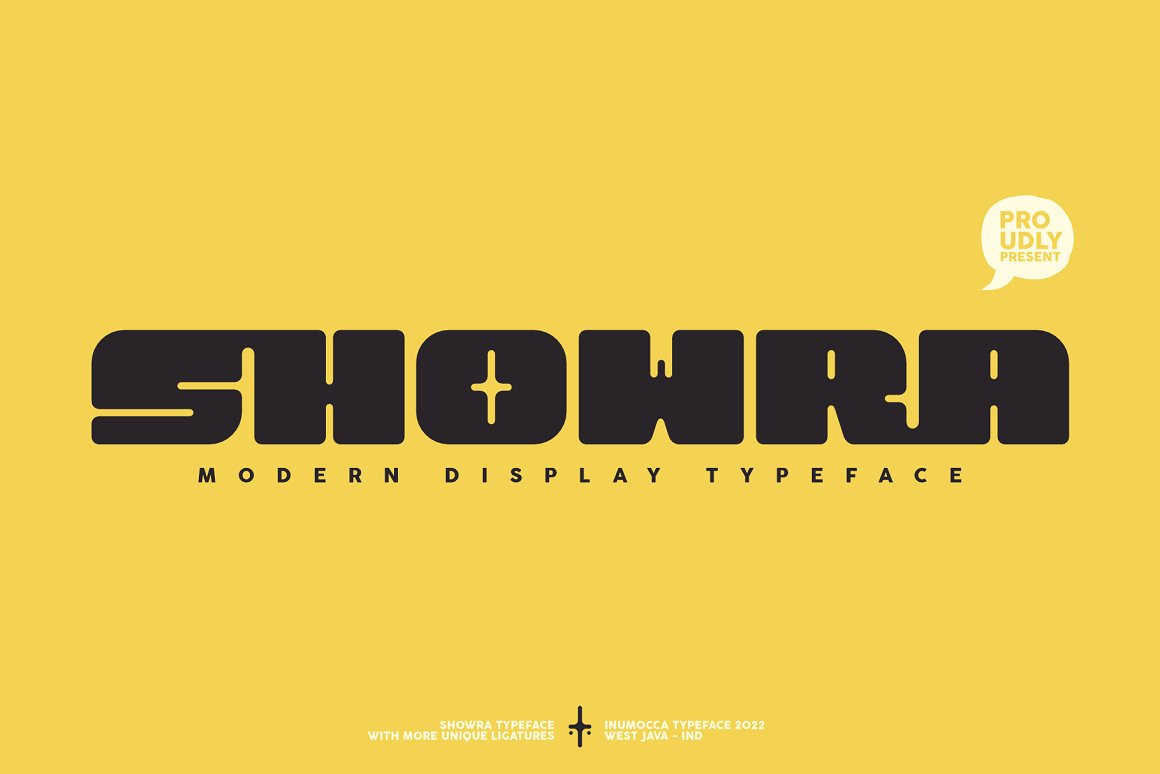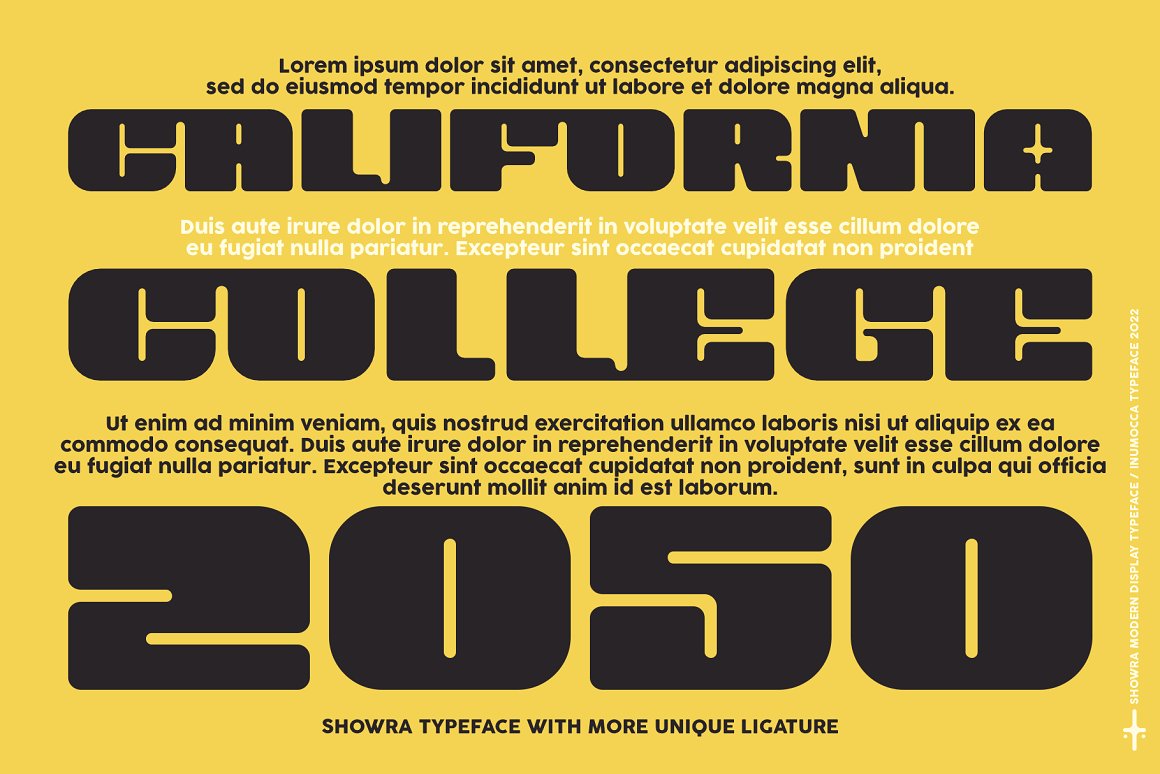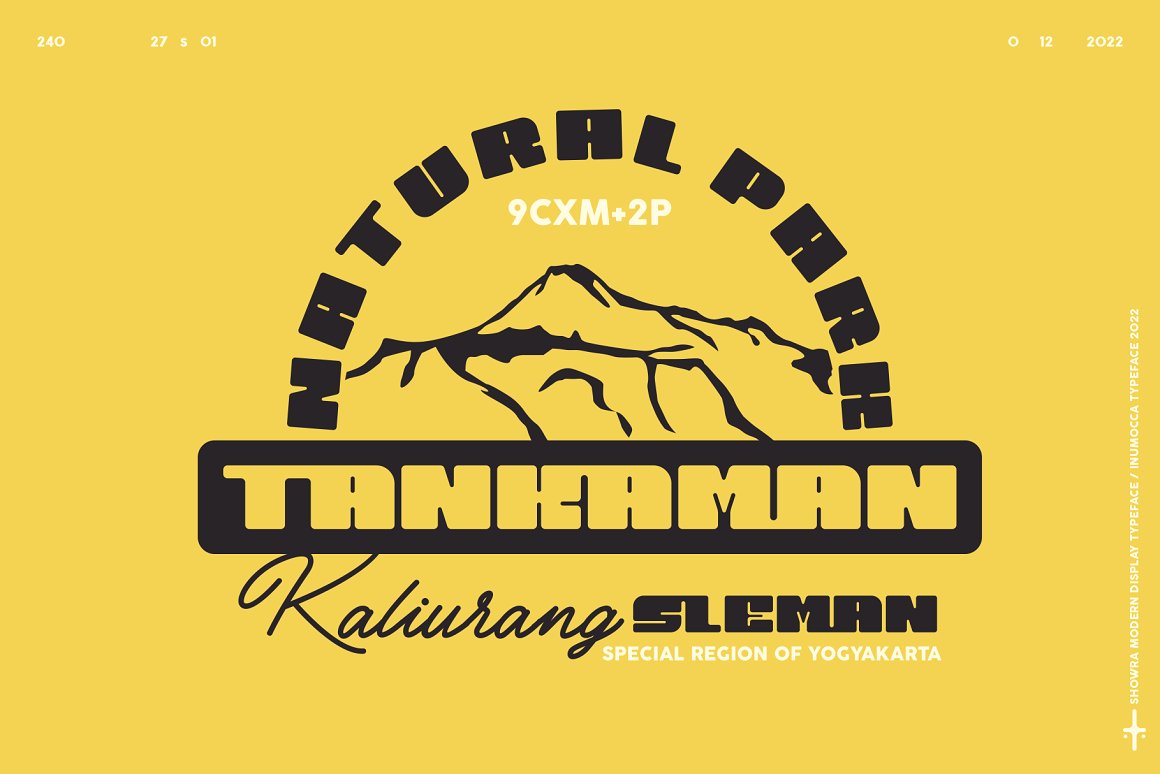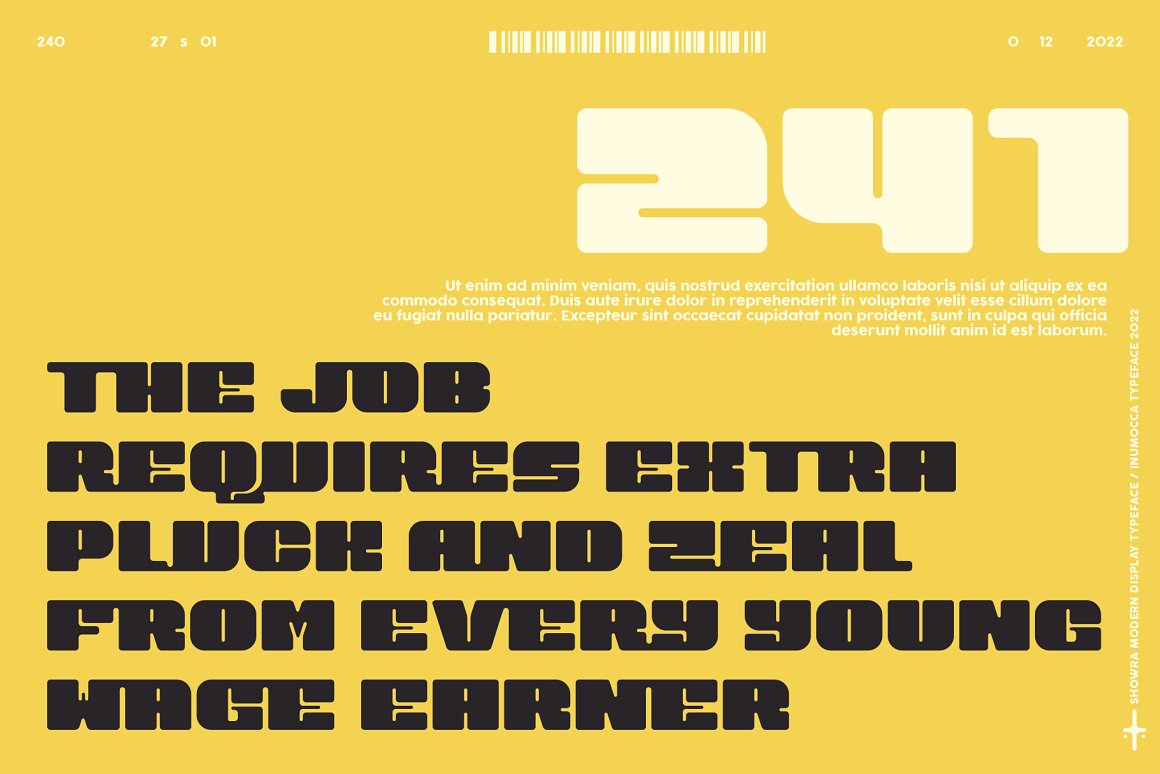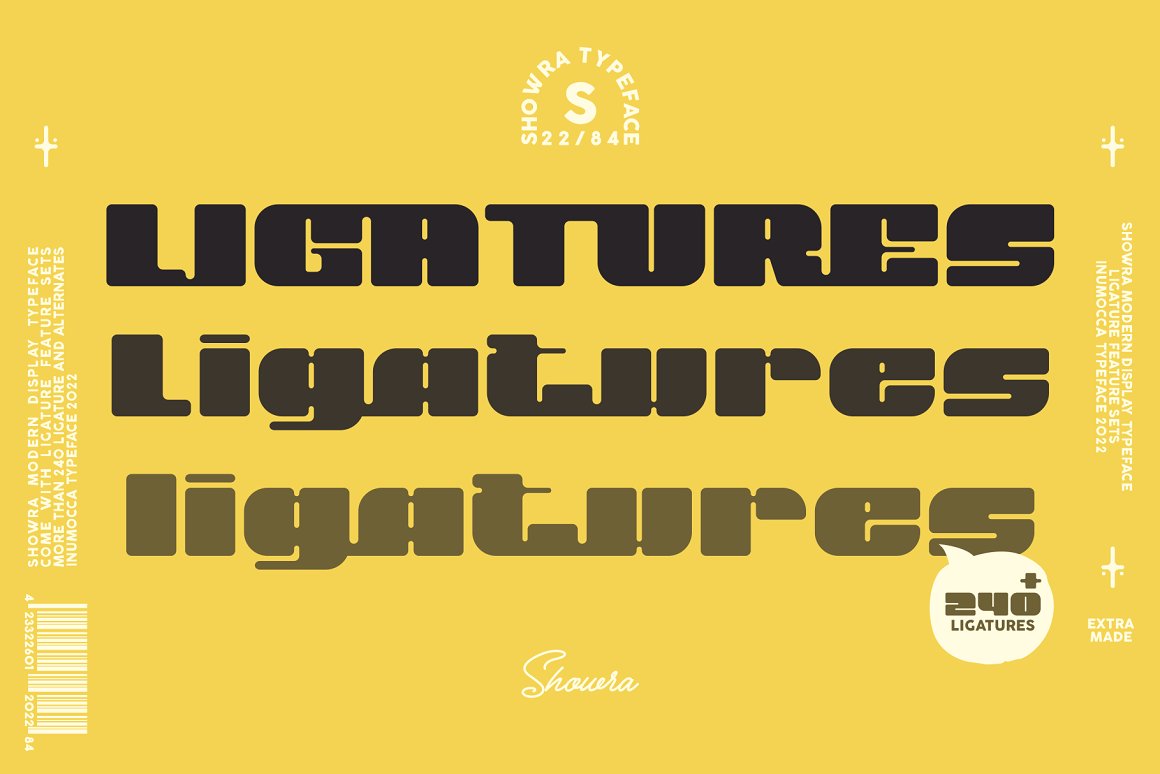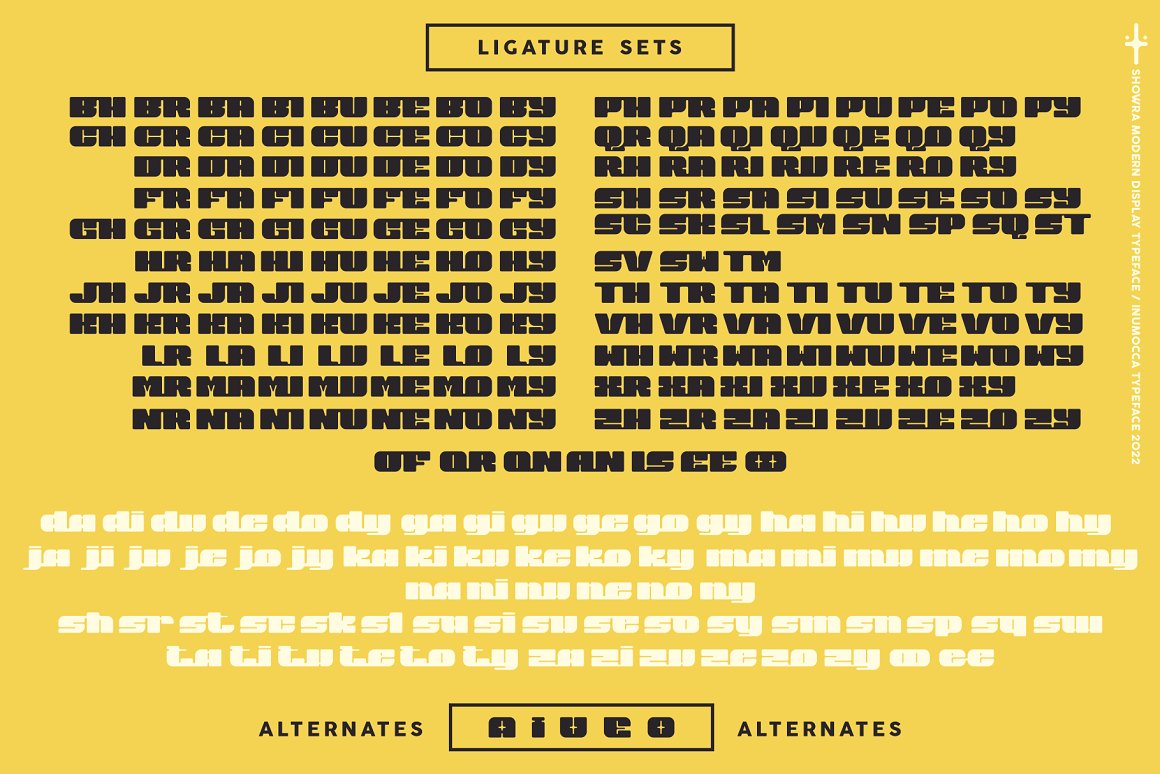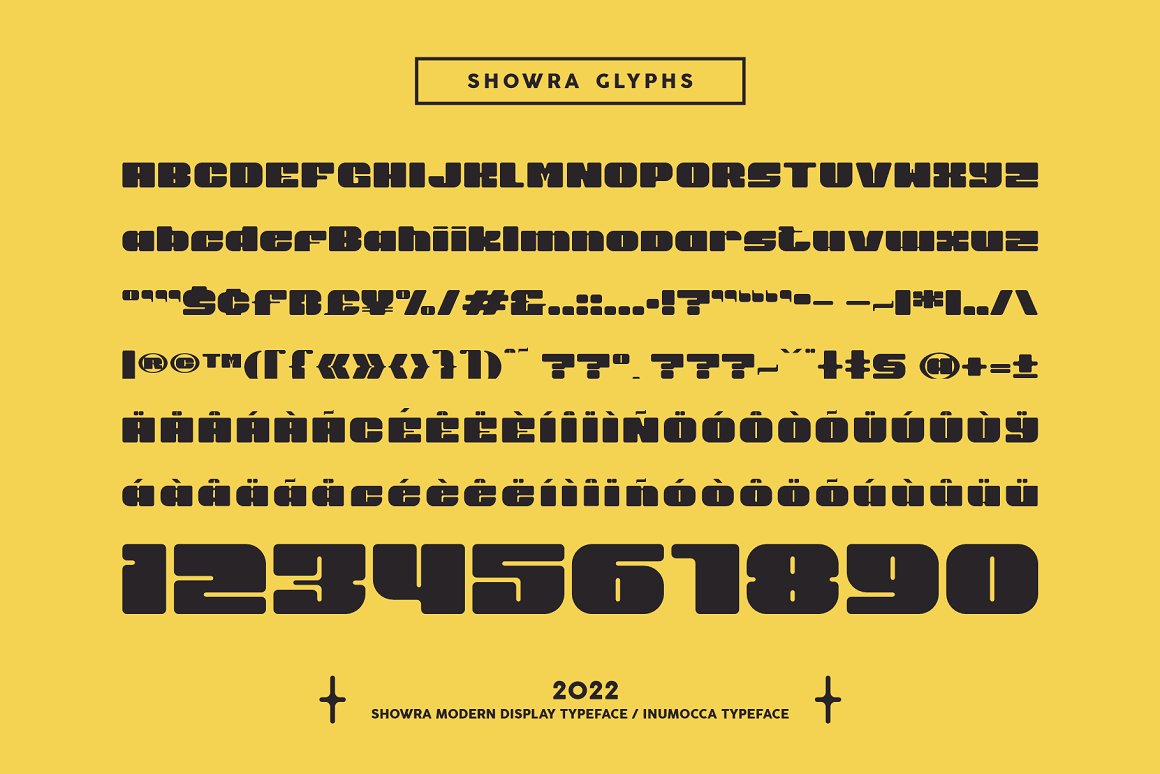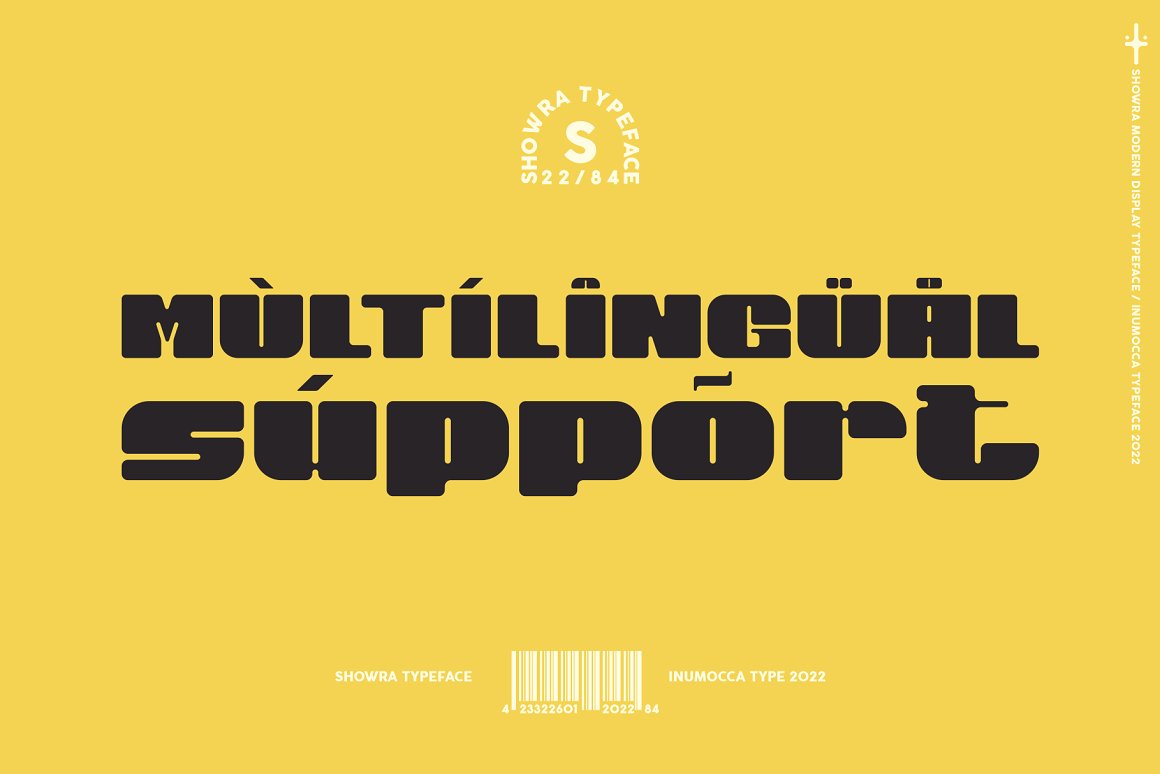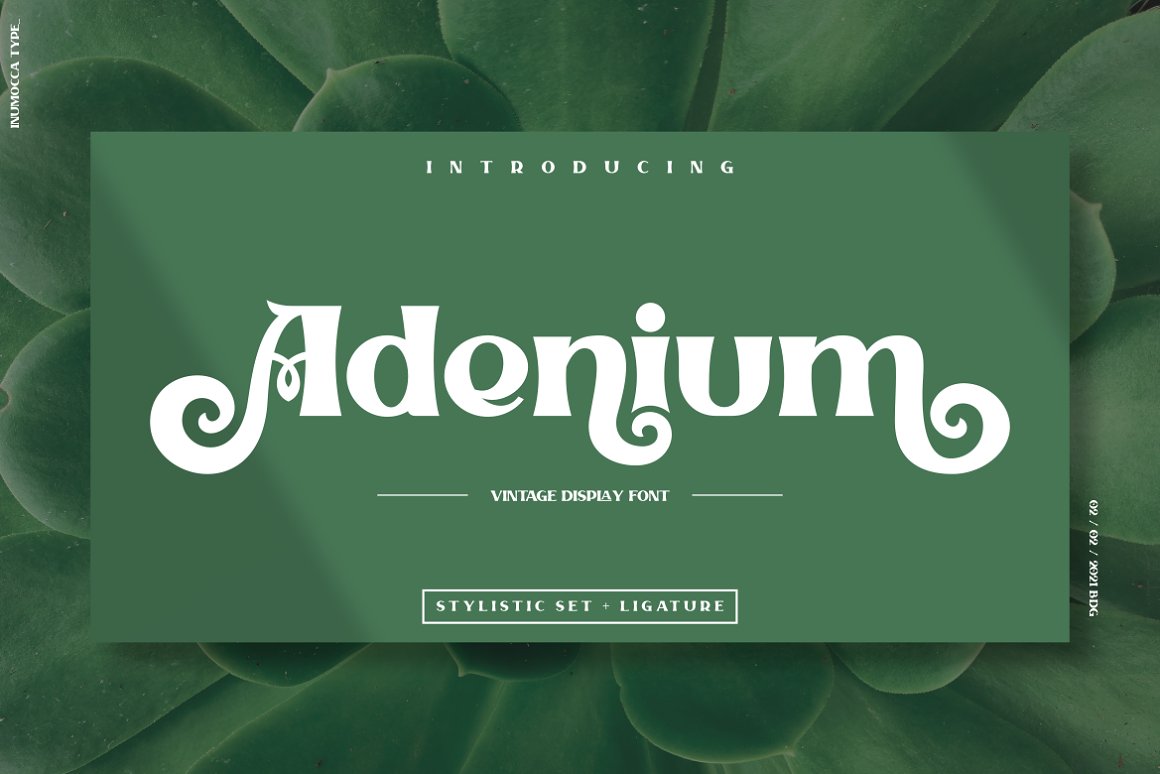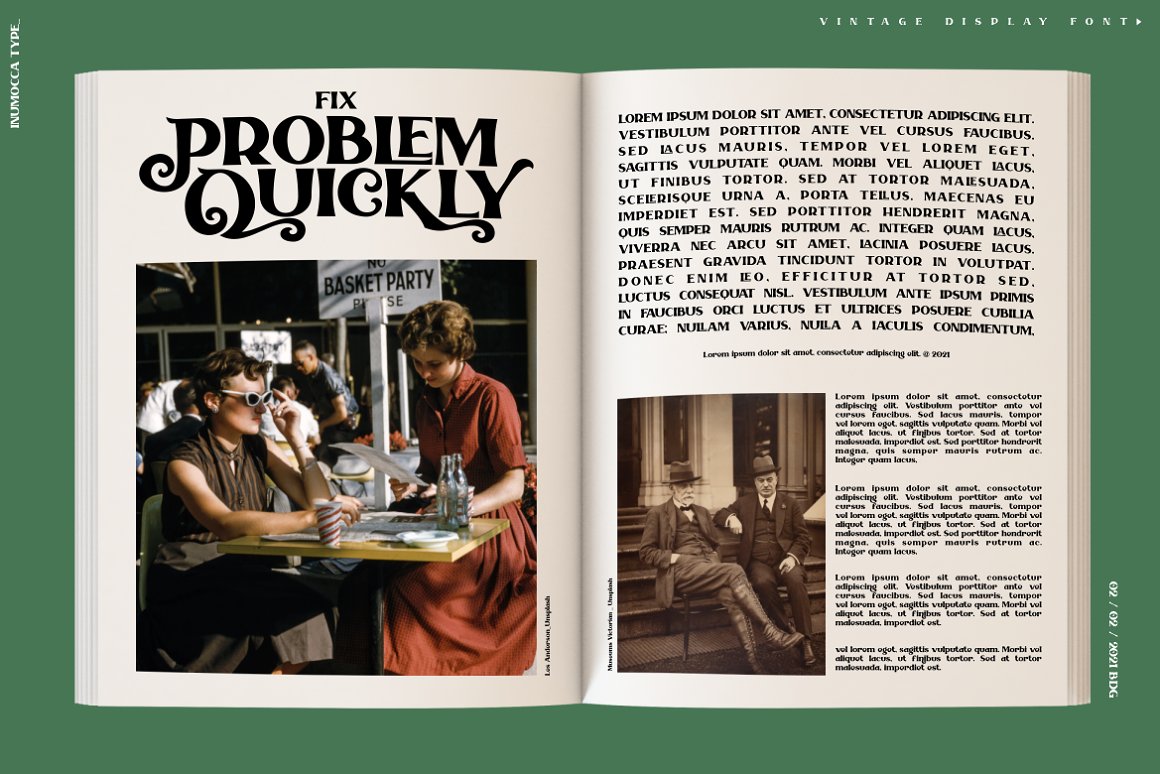
If you need something new in your fonts library for your new project we have a unique typography bundle for you 🙂 With 16 retro or vintage style display font families you can create unique t-shirt designs, posters, invitations or print designs.
All these creative fonts from inumocca type can help you with new project in a unique way. So be sure to check out the full details and view the preview images because this bundle is cool 😉
- 16 vintage & decorative font families
16 vintage & decorative font families!
01. Rullen from inumocca type
Rullen is A Retro typeface the 70s font style great choice for expressing a summer. The Typeface comes with Stylistic Set Exellent typeface to use for covering your Project, like Branding, Movie Title, Headline Letter, Bookcover or Book Content, Magazine cover, Poster, Quotes Lettering, Logos, and more your project design.
- Unique glyphs
- Multilingual Characters Support
- UPPERCASE
- Lowercase
- Numeric
- Symbol
- Punctuation Character
- Stylistic Set
02. CABO BLANCCO from inumocca type
CABO BLANCCOÂ is A Tropical Display Font inspired by a traditional carved wooden tiki, Powerfull and has a very distinct and Bold Character, Great for expressing a summer,The Typeface comes with Stylistic Alternates and Ligature Combinations Exellent typeface to use for covering your Project, like Branding, Headline Letter, Flyer, Signage, Quotes, Poster Typography, Bookcover, Magazine cover, Poster, Quotes Lettering, Logos, and more your project design.
- Unique glyphs
- Multilingual Characters Support
- UPPERCASE
- Lowercase
- Numeric
- Symbol
- Punctuation Character
- Ligature
- Stylistic Alternates
03. The BUCKAROOZ from inumocca type
The BUCKAROOZÂ is A Reverse-Contrast letterform with Western Cowboy Atmosphere. They were particularly common in the nineteenth century, and I want to Presenting the letterform style of that era. The Typeface comes with Stylistic Set and Ligature Combinations Exellent typeface to use for covering your Project, like Branding, Movie Title, Headline Letter, Bookcover or Book Content, Magazine cover, Poster, Quotes Lettering, Logos, and more your project design.
04. Showra from inumocca type
Showra Modern Display Typeface, Bold and powerfull. and I want to Presenting Modern and Classy tastes. The Typeface comes with Ligature Sets (more than 240) and alternates Exellent typeface to use for covering your Project, like Branding, Movie Title, Headline Letter, Bookcover or Book Content, Magazine cover, Poster, Quotes Lettering, Logos, and more your project design.
05. Adenium from inumocca type
Adenium Typeface inspired by the Shape of the Adenium Tree, Vintage Display typeface , Classic Taste with some Curly and Curved its Great flexible typeface. unique Stylictic Set and Beautiful Ligature, Really playful typeface to covering your Project, like Lettering, Website Interface, Bookcover or Book Content, Magazine cover, Branding, Poster, wedding invitations, Quotes Lettering, Logos, and more your project design.
06. San Louis from inumocca type
San Louis is an Elegant Serif typeface , Modern , Classy and Glamour Worlds. Awesome Stylictic Set, Beautiful Ligature and unique contecttual alternates, stylistic alternates. Really playful typeface to covering your Project, like Lettering, Website Interface, Magazine, Branding, Poster, wedding invitations, Quotes Lettering, Logos, and more your project design.
07. High Rise from inumocca type
High Rise a Modern Blackletter with brush scratches at the end of the stroke artistic techniques and also available opentype features, that works exactly where the word starts or ends. so they are look best used for Names,Initials, Brand names, logotype and Any more
08. FOLKLORIC from inumocca type
FOLKLORIC is A Retro Sans-Serif Style They were particularly common in the 70s, this is a great choice for expressing a summer. The Typeface comes with Stylistic Set and Ligature Combinations Exellent typeface to use for covering your Project, like Branding, Movie Title, Headline Letter, Bookcover or Book Content, Magazine cover, Poster, Quotes Lettering, Logos, and more your project design.